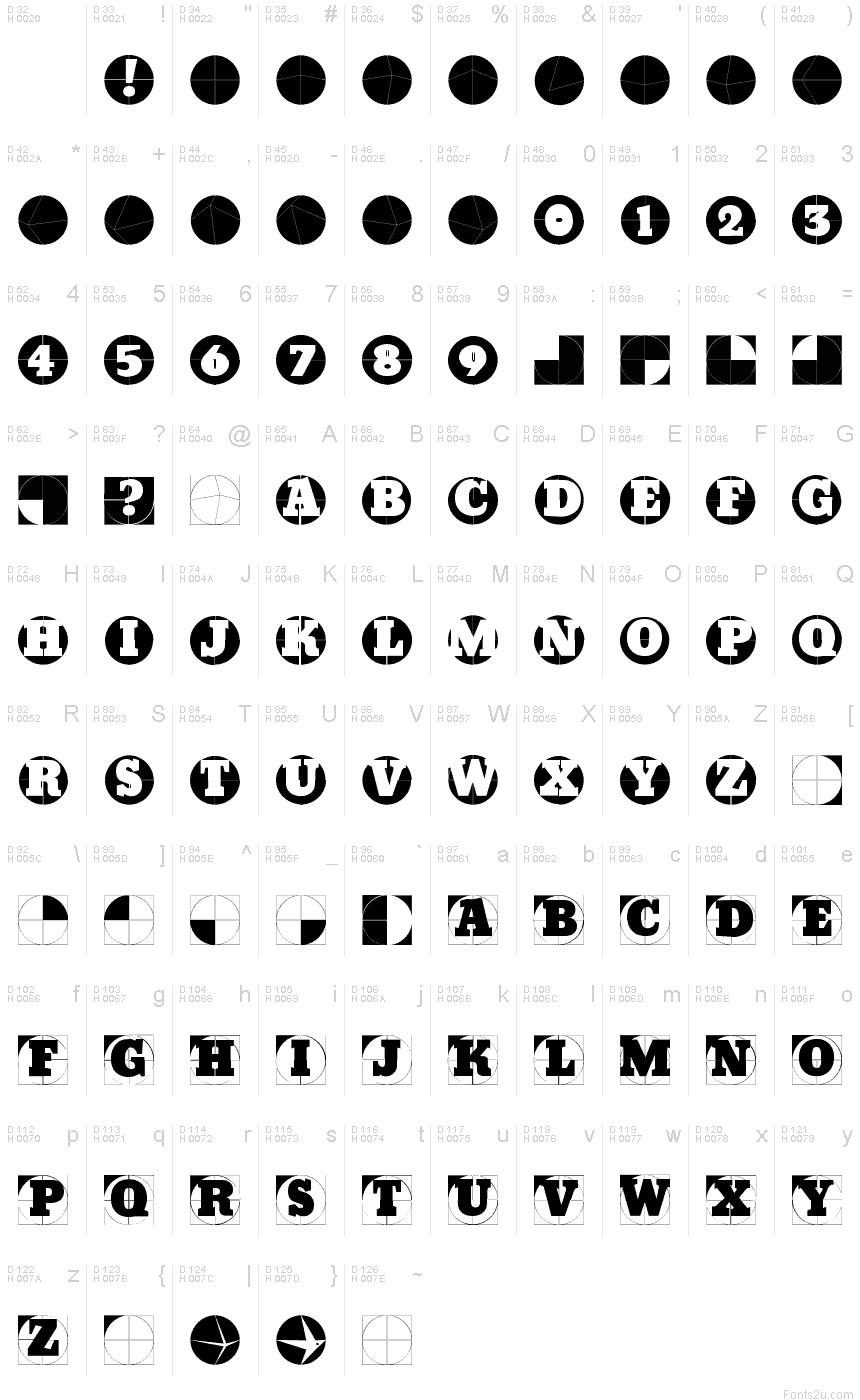
GridConcreteLogoable
Grid Concrete Logoable font by Manfred Klein is a free decorative display typeface that turns every letter into a bold geometric emblem. Each character sits inside a strict grid and circle, switching between inky black blocks and clean white cutouts, so words feel like a row of stamped icons rather than plain text. The result is chunky, tactile, and instantly logo-ready, with just enough irregularity to keep it human and handmade rather than coldly mechanical.
Using Grid Concrete Logoable, short phrases snap into striking wordmarks for logos, event badges, poster headlines, packaging labels, game titles, or art and tech festival branding. This free font thrives at big sizes where its circular modules and crisp divisions can really show. Pair it with a simple, neutral sans serif for body copy, and let GridConcreteLogoable handle the loud, attention-grabbing moments.